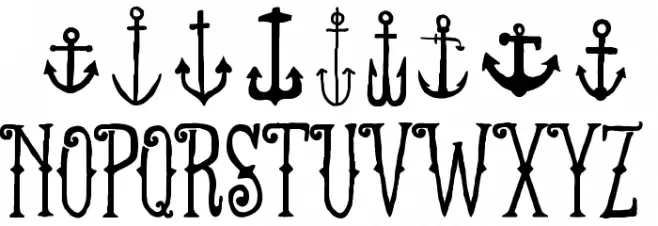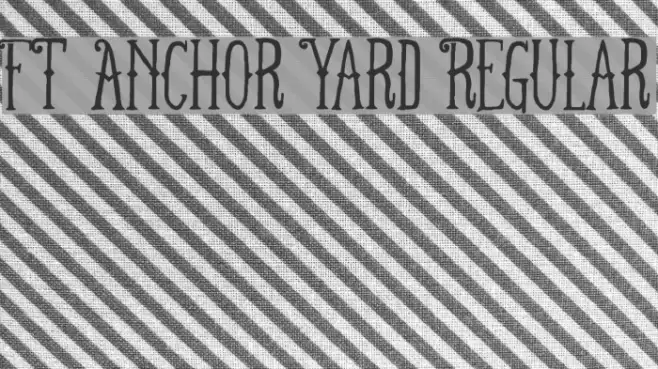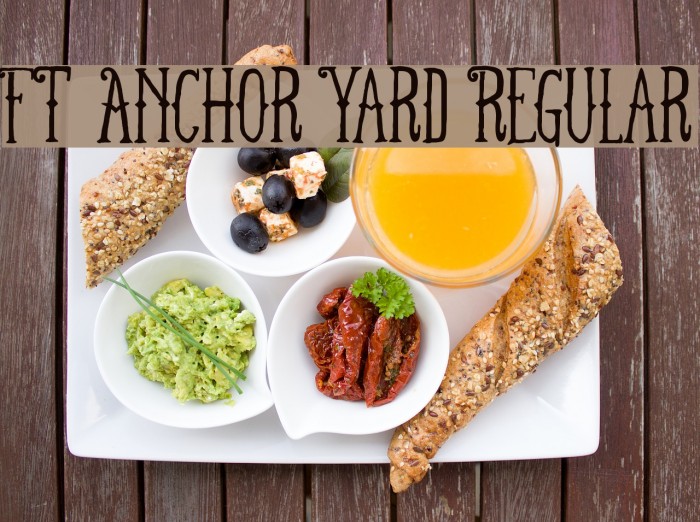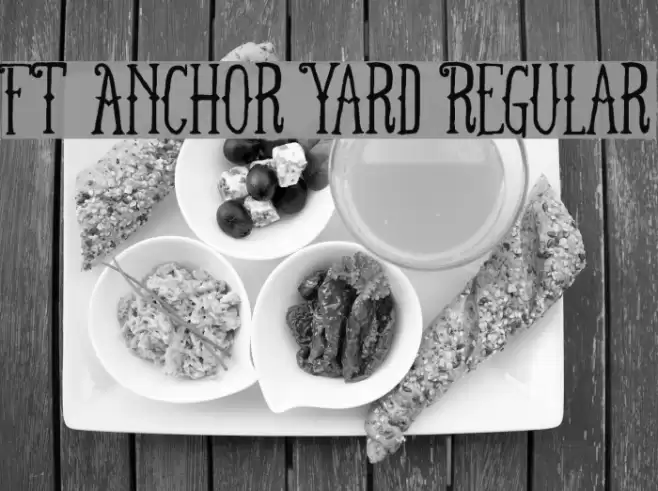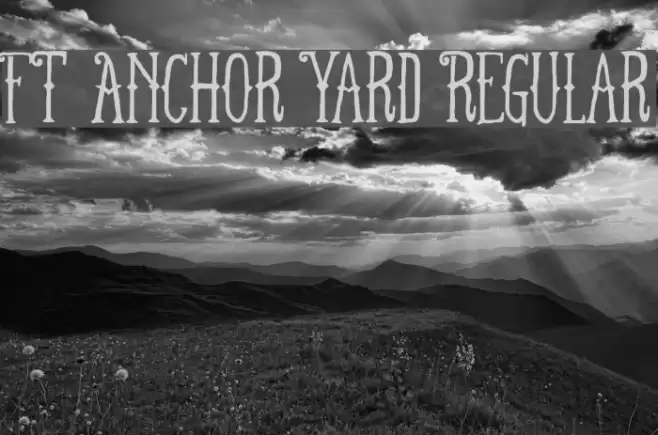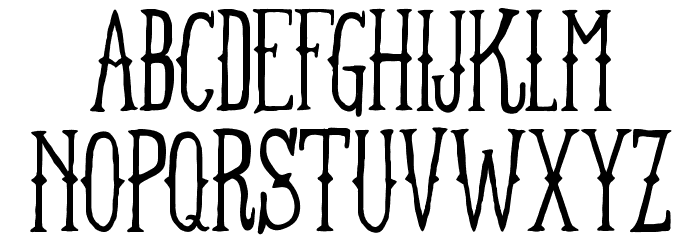
FT Anchor Yard Regular Font
This font features a nautical theme with a decorative style, incorporating elements reminiscent of anchors and maritime motifs. The characters are tall and slender, with unique serifs that mimic the shape of anchors, adding a playful yet sophisticated touch. The uppercase letters are particularly ornate, with some characters featuring swirls and curves that enhance the maritime aesthetic. The font maintains a consistent weight throughout, providing a balanced appearance. Its distinct style makes it suitable for projects that require a touch of whimsy and elegance, particularly those related to the sea or nautical themes.
A decorative, nautical-themed font with anchor-like serifs and a playful style.
• Proposed Projects: Ideal for maritime-themed designs, posters, event invitations, and branding for seaside businesses.
• Category: Decorative/Display
• Width: Normal
• Character Spacing: Normal
• Contrast: Medium
• Overall Style: Decorative
• Use Case: Logos, Headlines, Themed Events